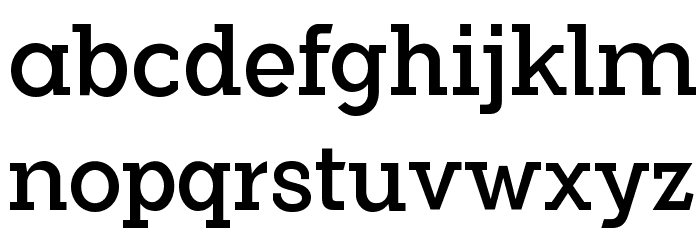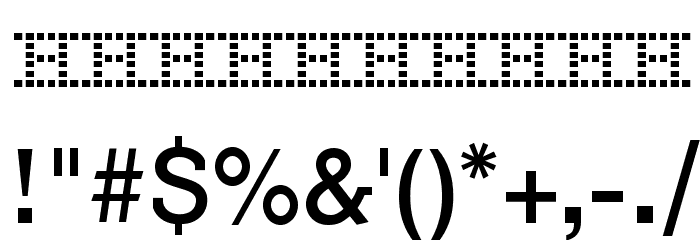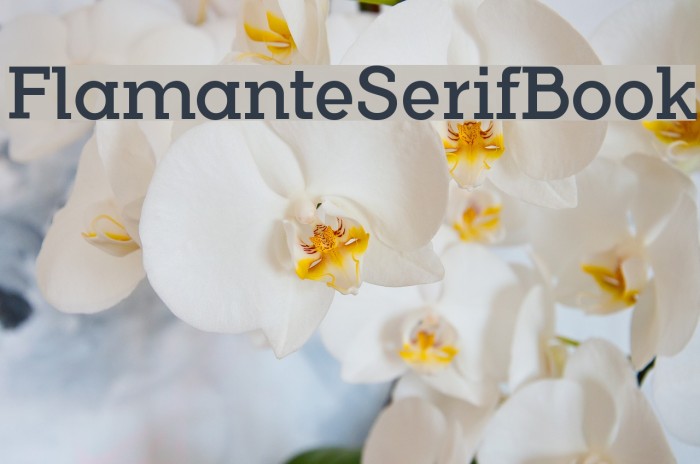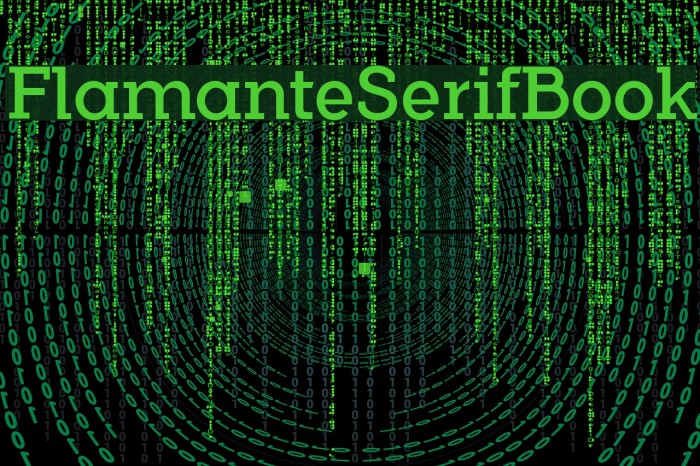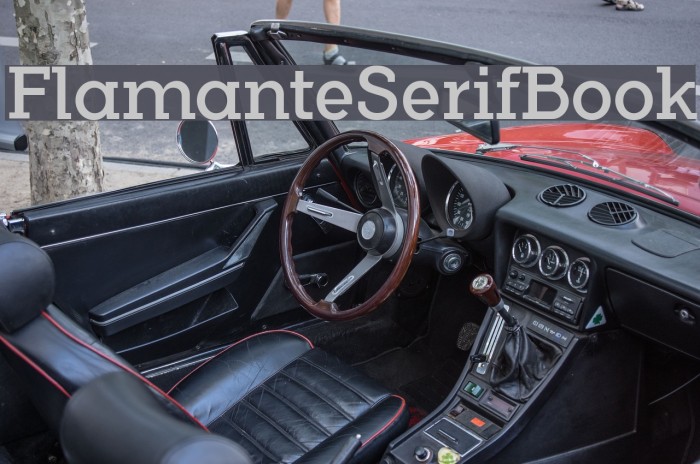
FlamanteSerifBook Font
This typeface exudes a classic and elegant charm, characterized by its clean and precise serif detailing. The uppercase letters are bold and commanding, while the lowercase letters maintain a harmonious balance with slightly rounded edges. The numerals are clear and straightforward, ensuring readability. Special characters are thoughtfully designed, complementing the overall aesthetic. The font's structure is robust, making it suitable for a variety of applications where clarity and sophistication are desired.
A classic serif typeface with elegant and precise detailing.
- Proposed Projects: Ideal for editorial design, book covers, formal invitations, and branding projects that require a touch of sophistication.
- Overall Style: Classic